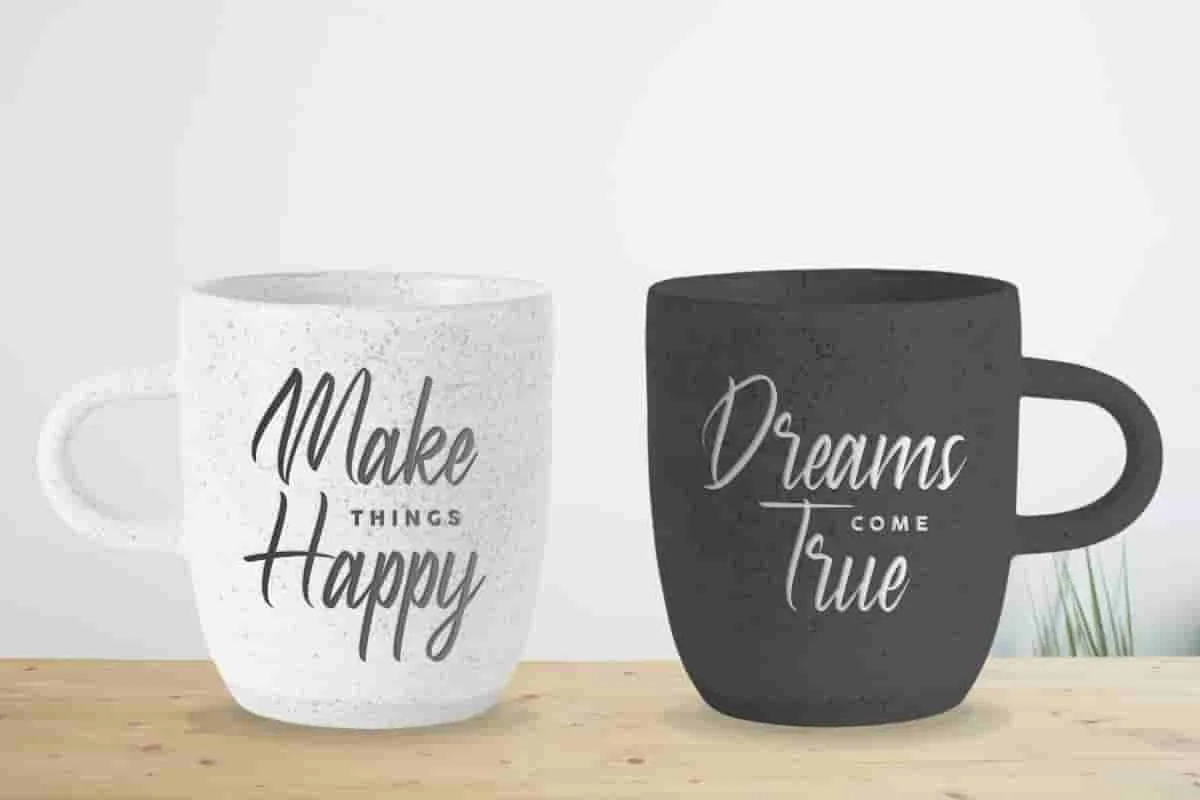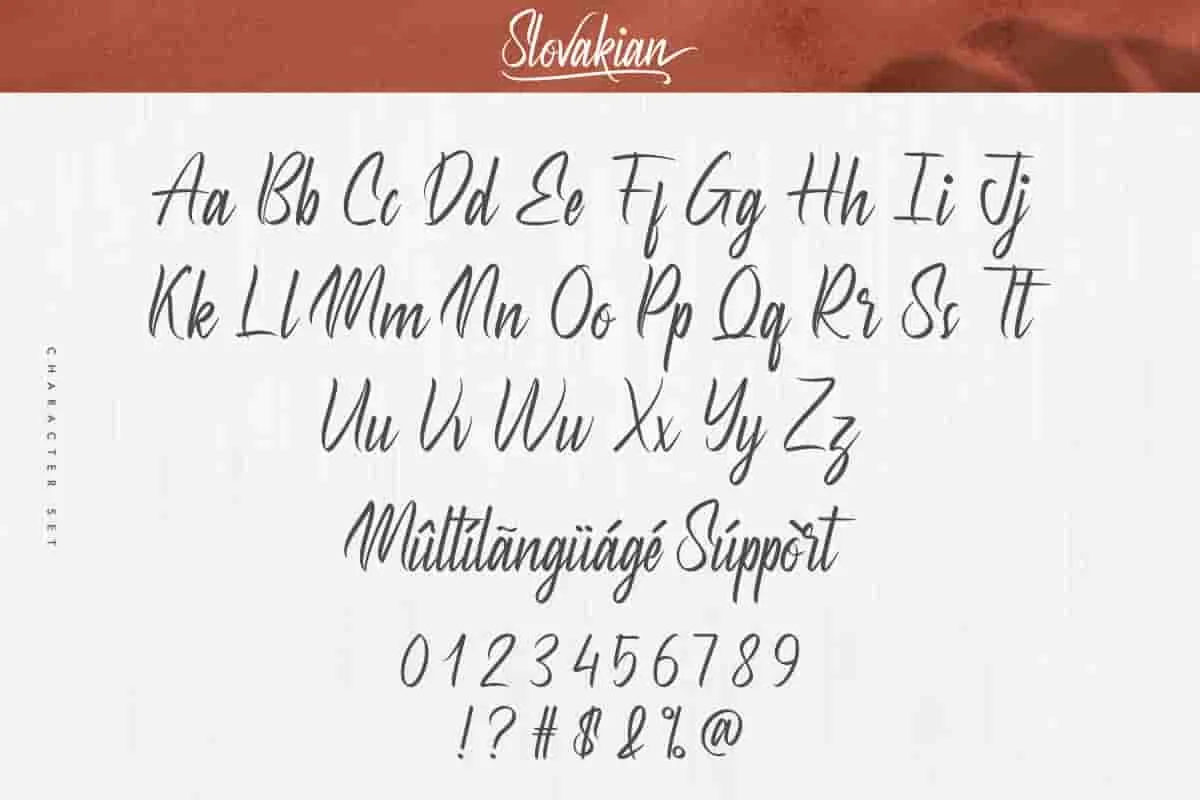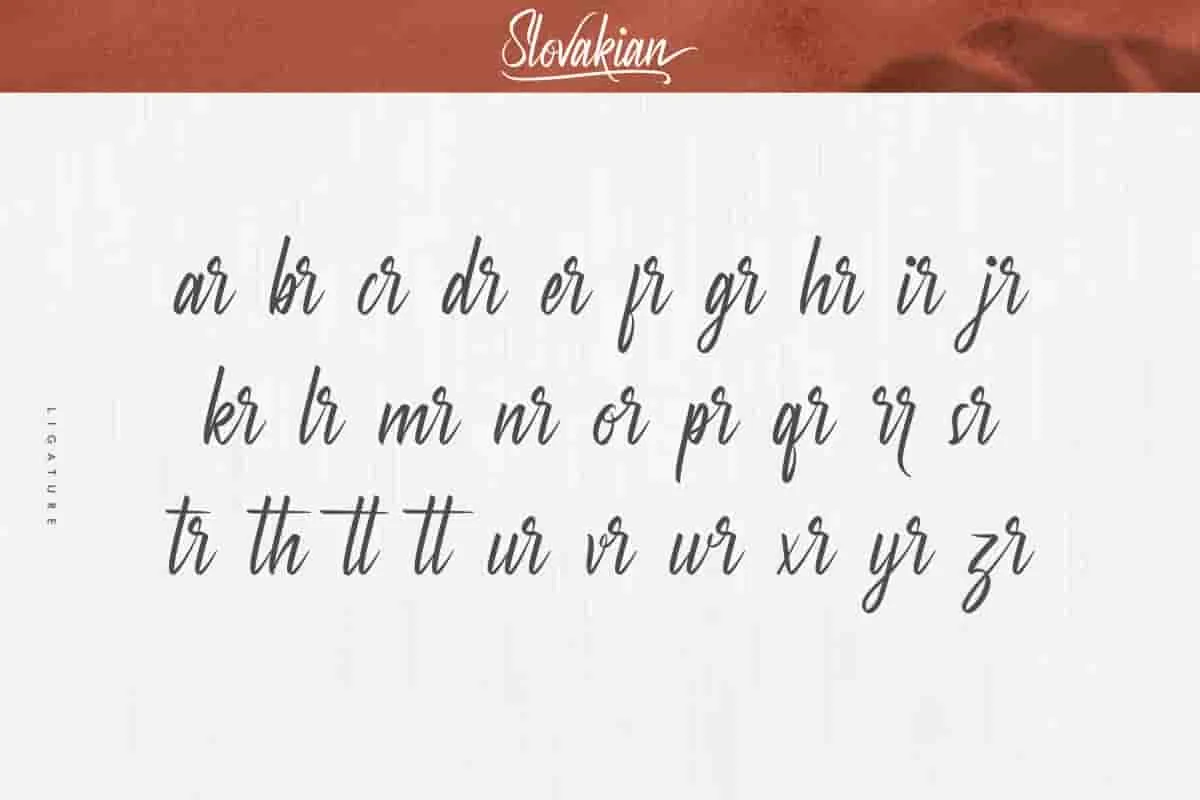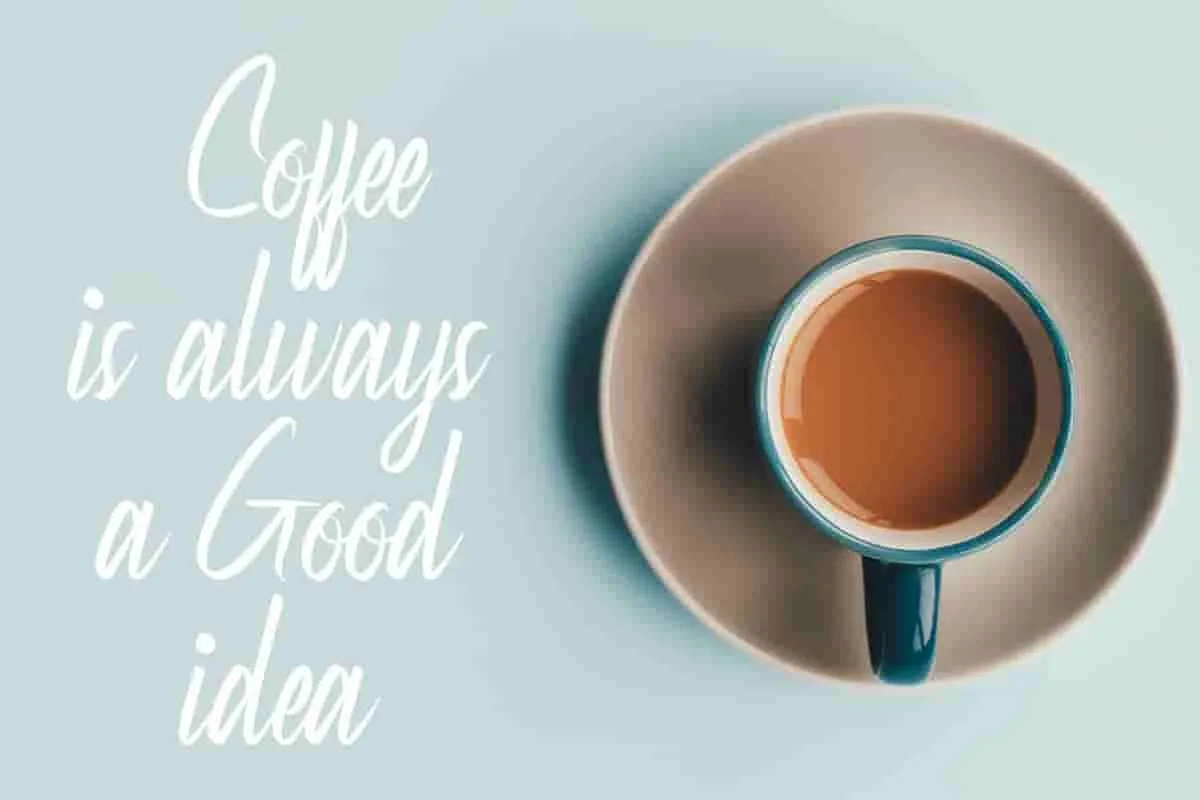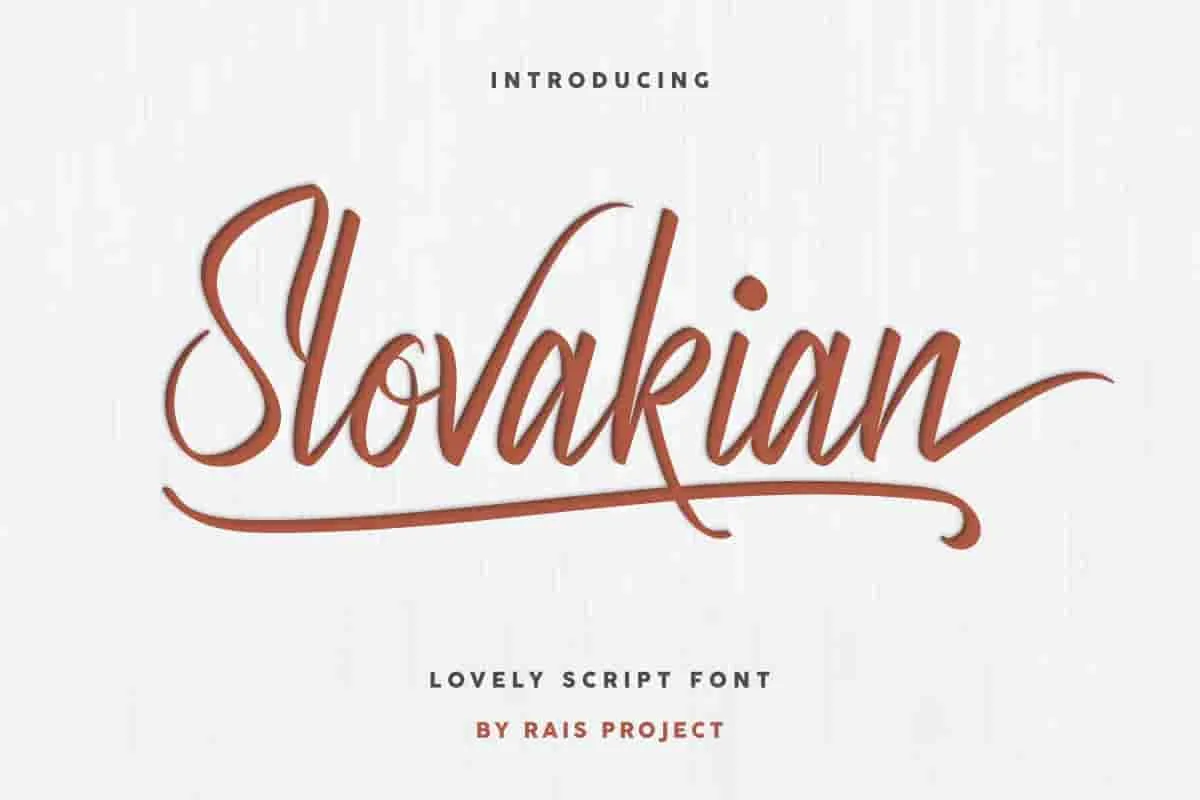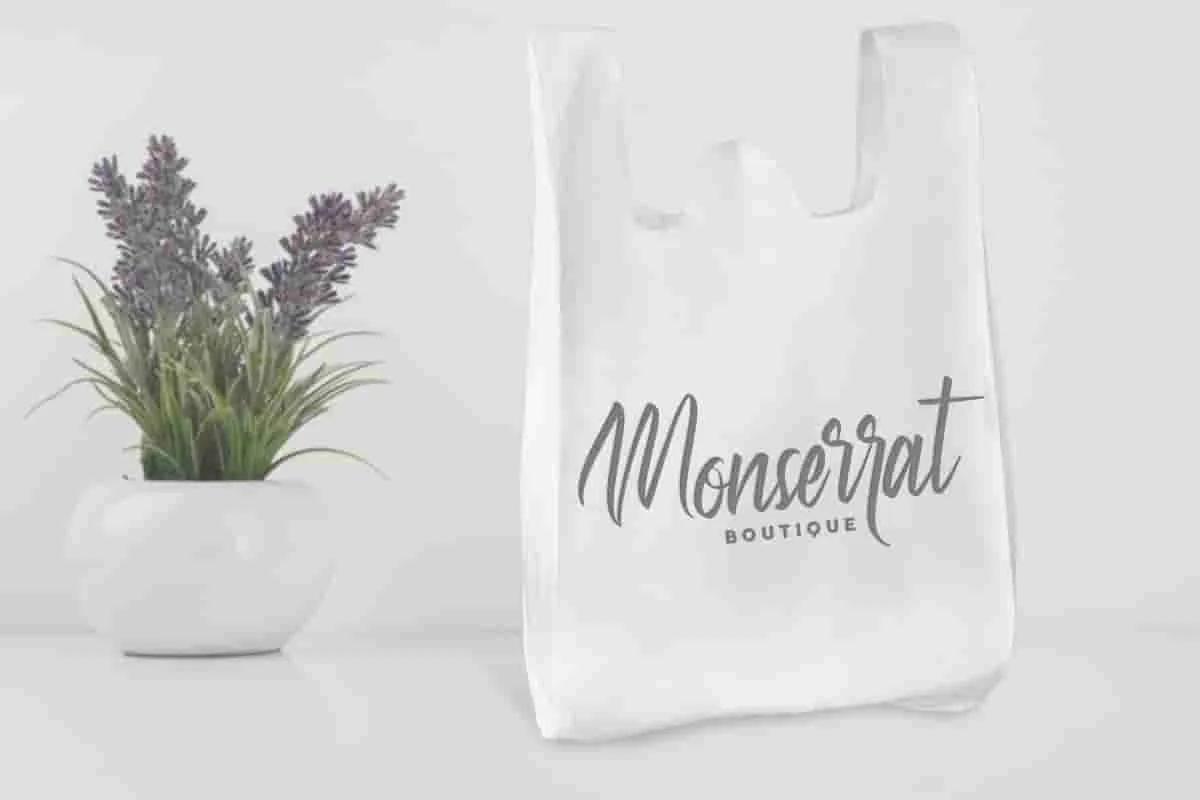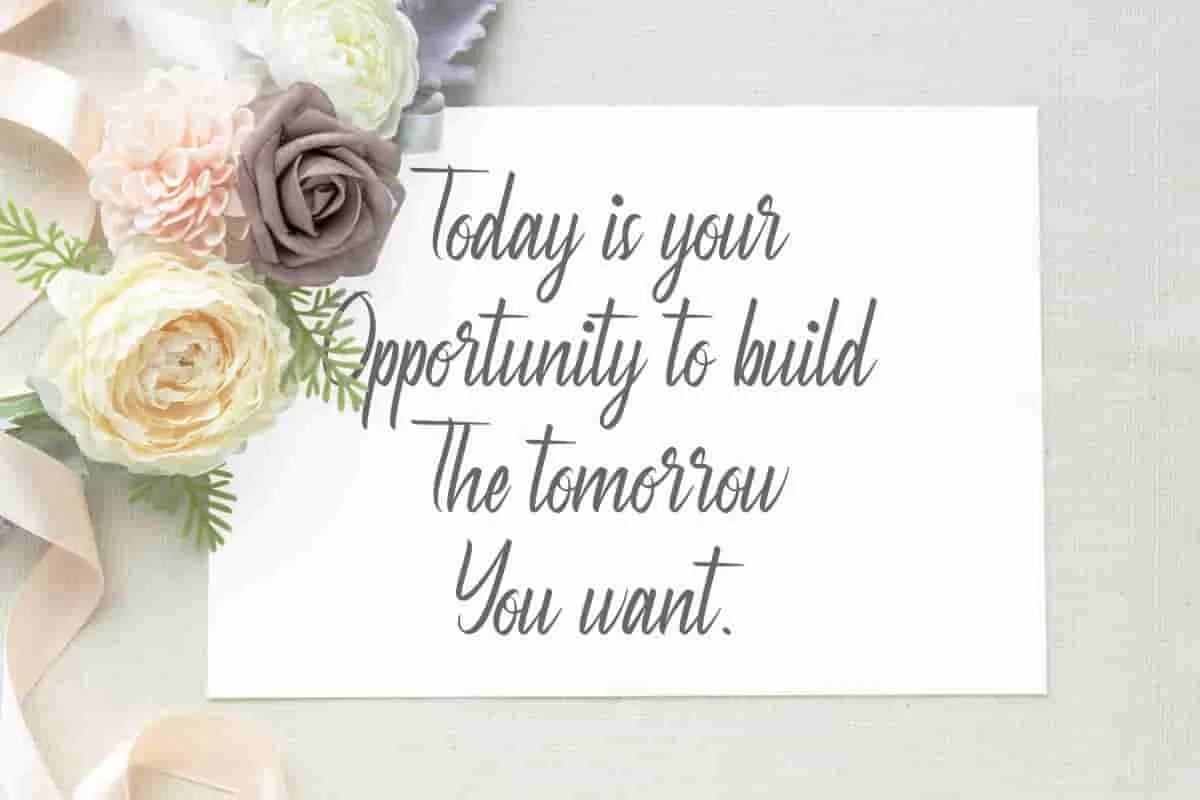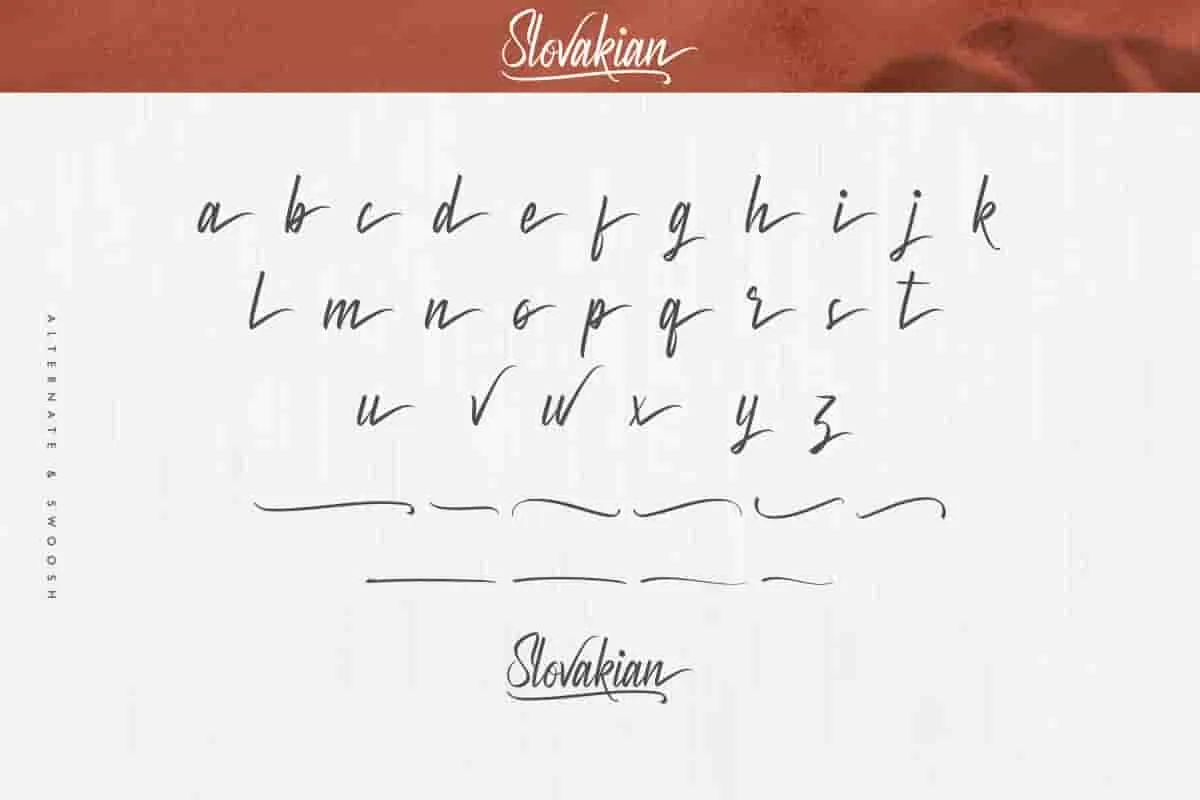
Slovakian Calligraphy Font
Slovakian Font is a Beautiful Calligraphy Font by RaisProject. With unique characters, it will be stunning for any your special projects including : weddings, promotion, events, branding, advertising etc
Slovakian Font  is a beautiful script font with calligraphic handwriting style. You can see the demo font below. You can also input any word you want so you can see what it will look like :
Slovakian Font made in Indonesia by Widi and Sarah for RaisProject. The font handcrafted With beautiful characters, it will be stunning for any your special projects including : weddings, promotion, events, branding, advertising, magazine, shopping, signage, invitation, stationery, social media posts, product packaging, product designs, label, photography, watermark or and any projects that need calligraphy handwriting style.